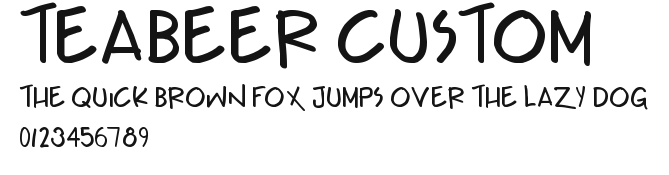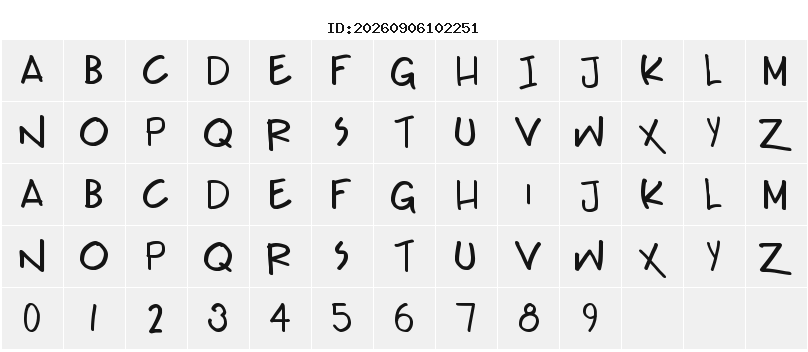
• Font Name: Teabeer Custom
About Teabeer Custom.ttf
Teabeer Custom.ttf is a modern, elegant sans-serif font designed for ultimate readability and visual harmony. Perfect for branding, headlines, web design, and print materials.